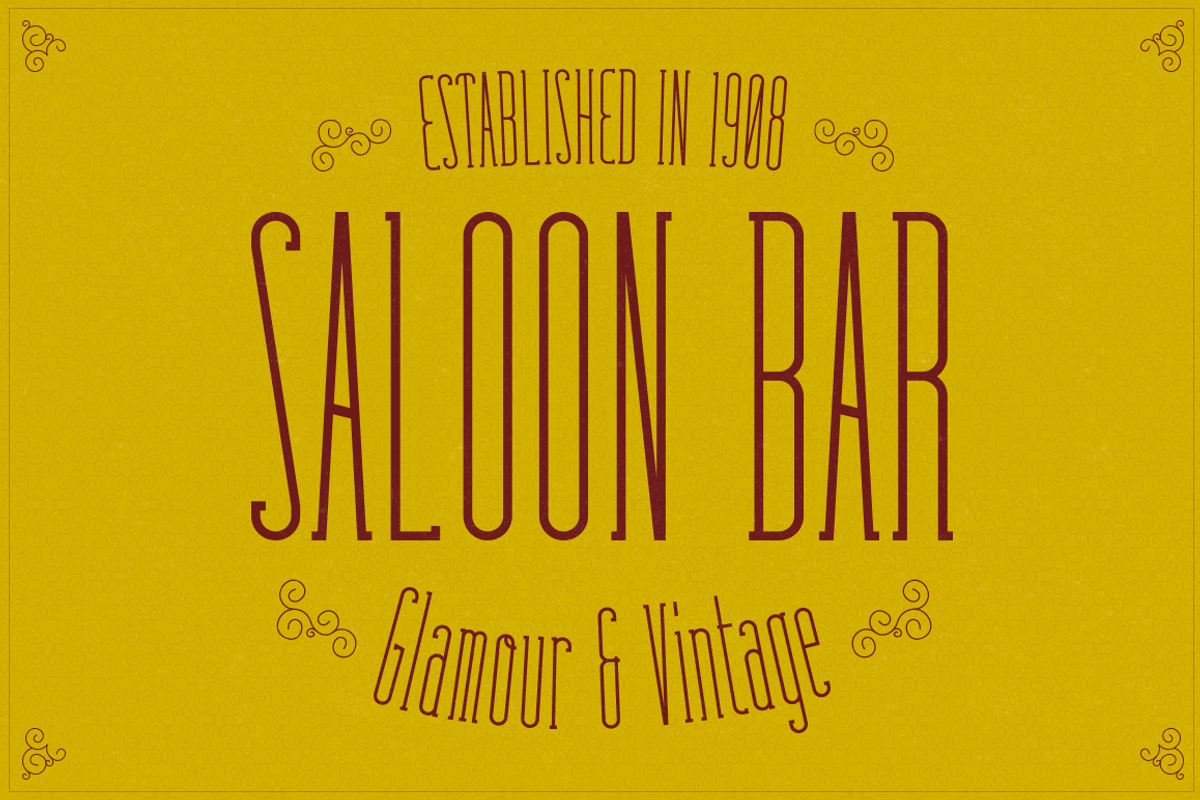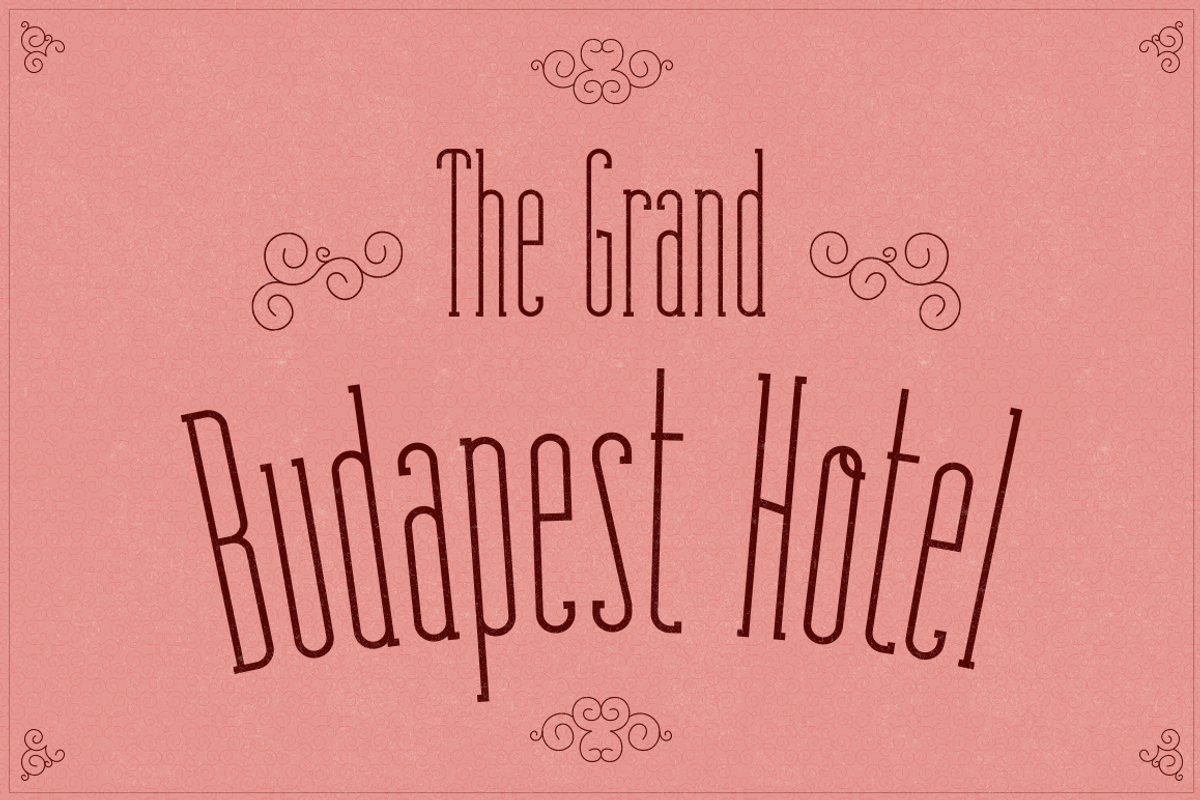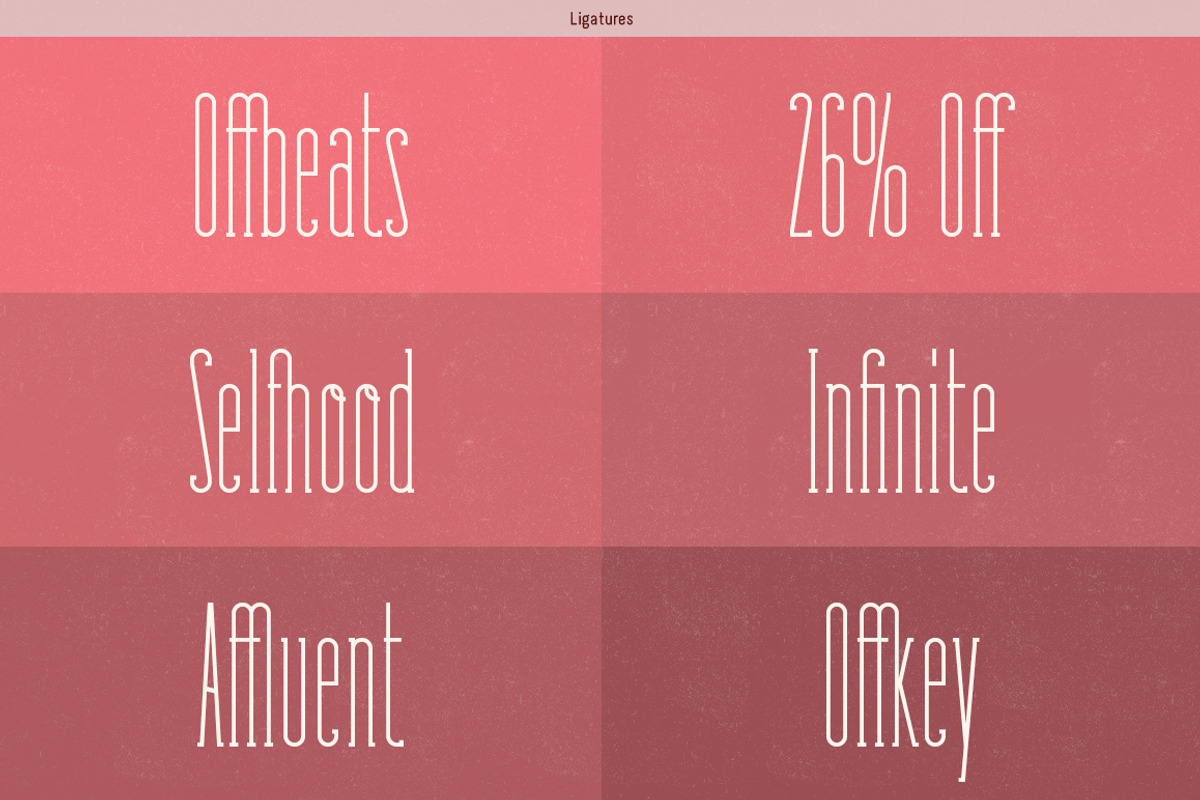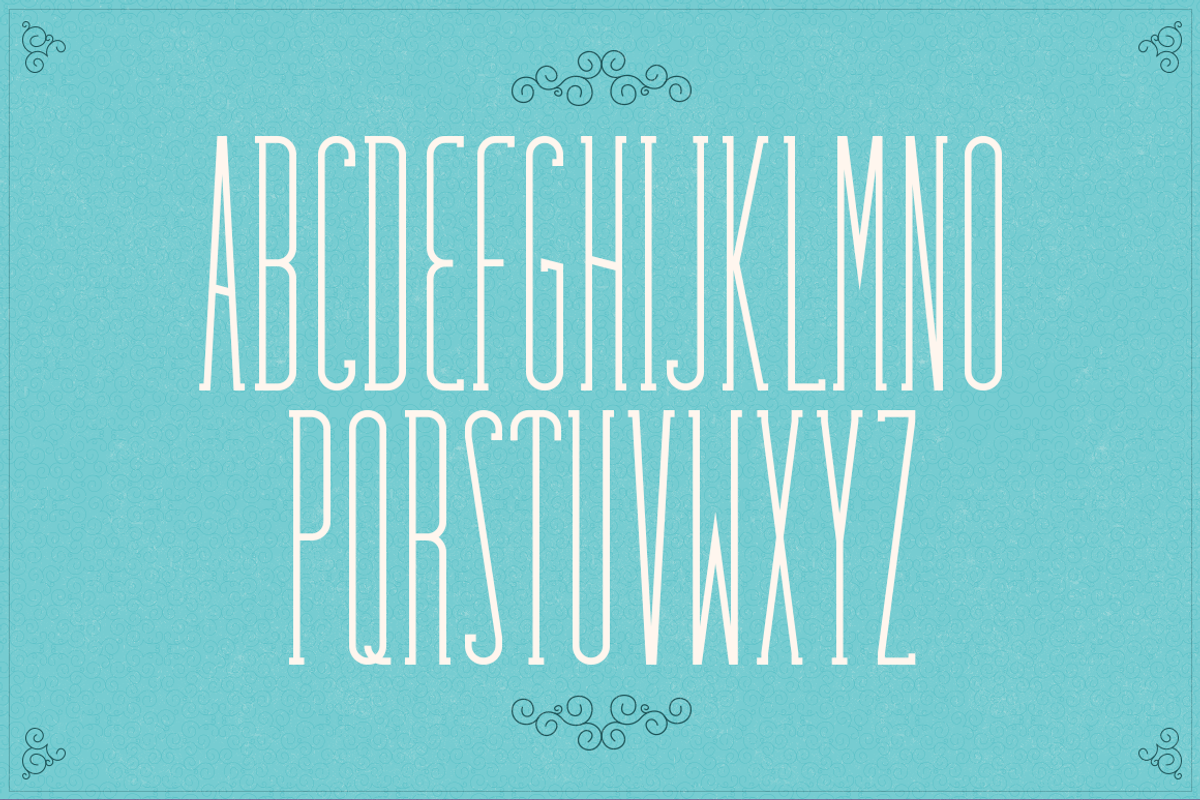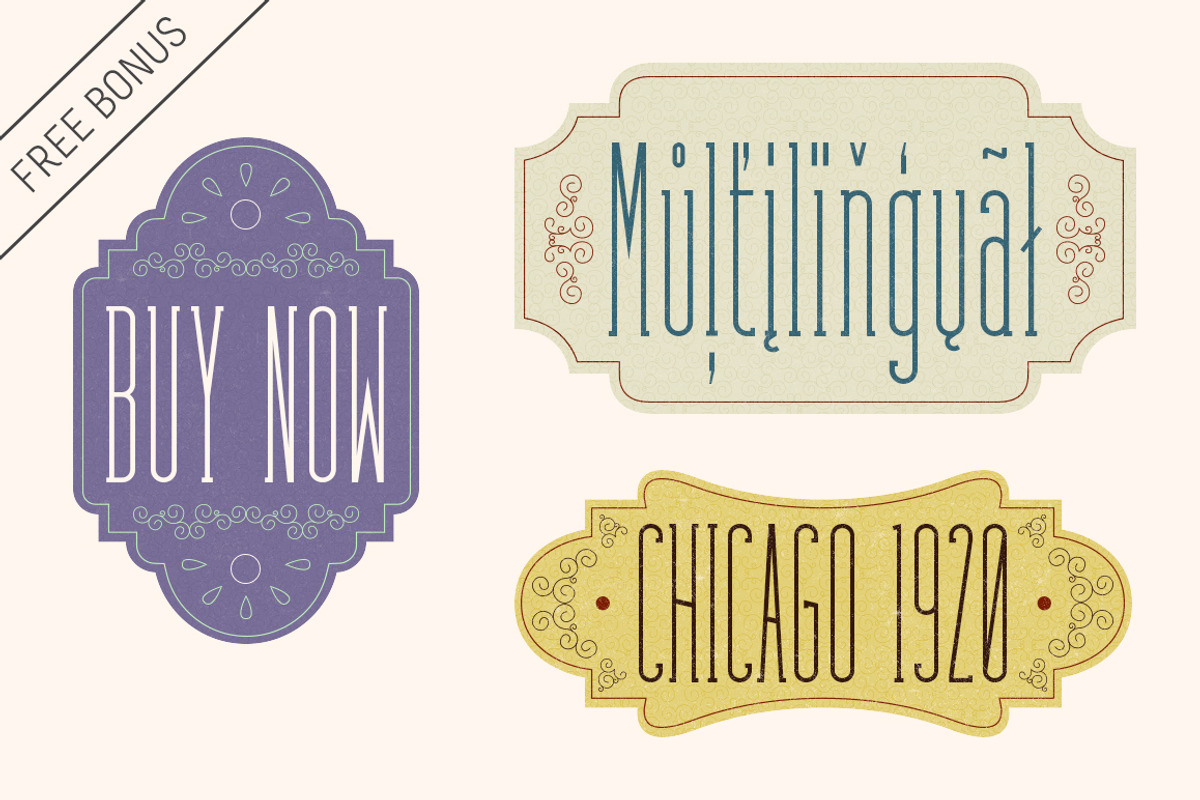
Fabuleuse Slab Font + Free Bonus
Fabuleuse Slab Font + Free Bonus by Nuno Dias is a font selected for branding, posters, packaging, typography.
- This display font comes in Capital letters as well as Lowercases.
- It also comes equipped with Ligatures, Numbers, Punctuation Marks, Diacritic Marks and a well stocked supply of special characters.
- Fabuleuse Slab Regular
Fabuleuse Slab Font + Free Bonus by Nuno Dias fits naturally into Branding, posters, packaging, typography.